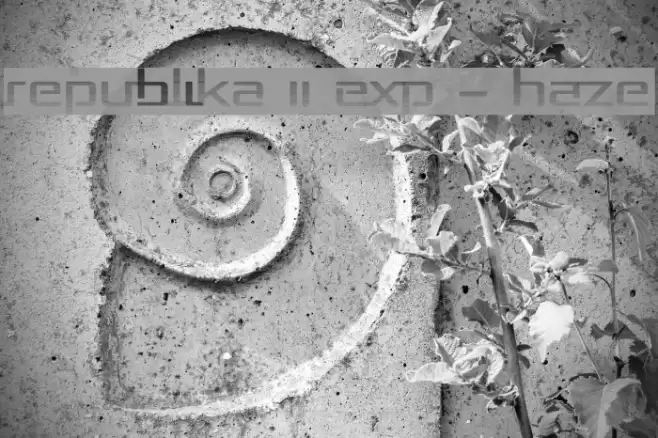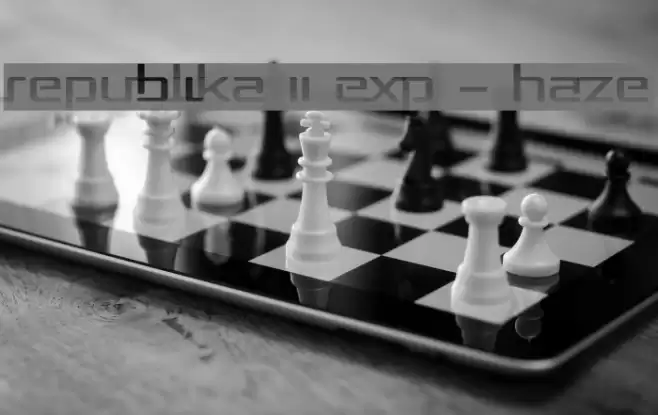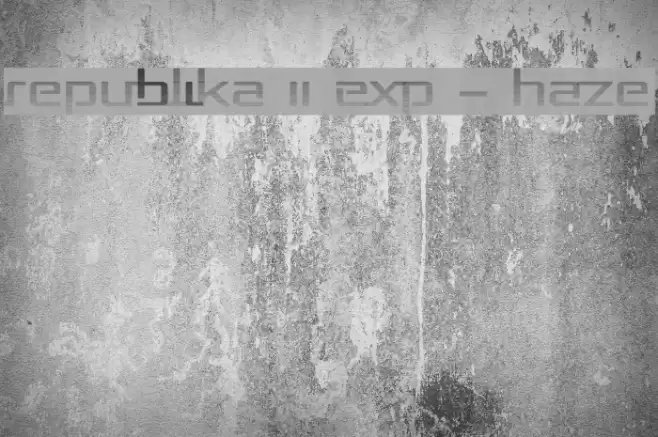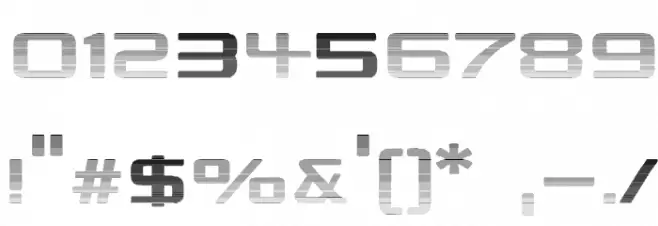
Republika II Exp - Haze Font
Republika II Exp - Haze Description
This font features a modern and futuristic design with a distinct digital aesthetic. The characters are composed of horizontal lines and geometric shapes, creating a sense of movement and technology. The uppercase and lowercase letters maintain a consistent style, with a unique blend of sharp angles and rounded edges. The numerals and special characters follow the same design principles, ensuring uniformity across all glyphs. The font's design is reminiscent of digital displays and electronic interfaces, making it suitable for tech-related projects.
A modern, digital-inspired font with geometric and linear elements from Uncategorized fonts.
- Proposed Projects: Ideal for technology branding, digital interfaces, video game titles, and futuristic-themed designs.
- Use Case: Logos, Headlines, Digital interfaces